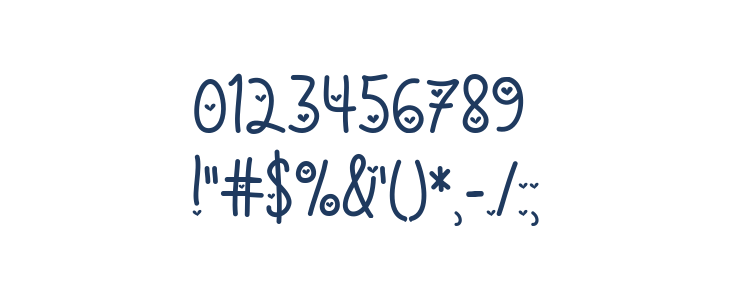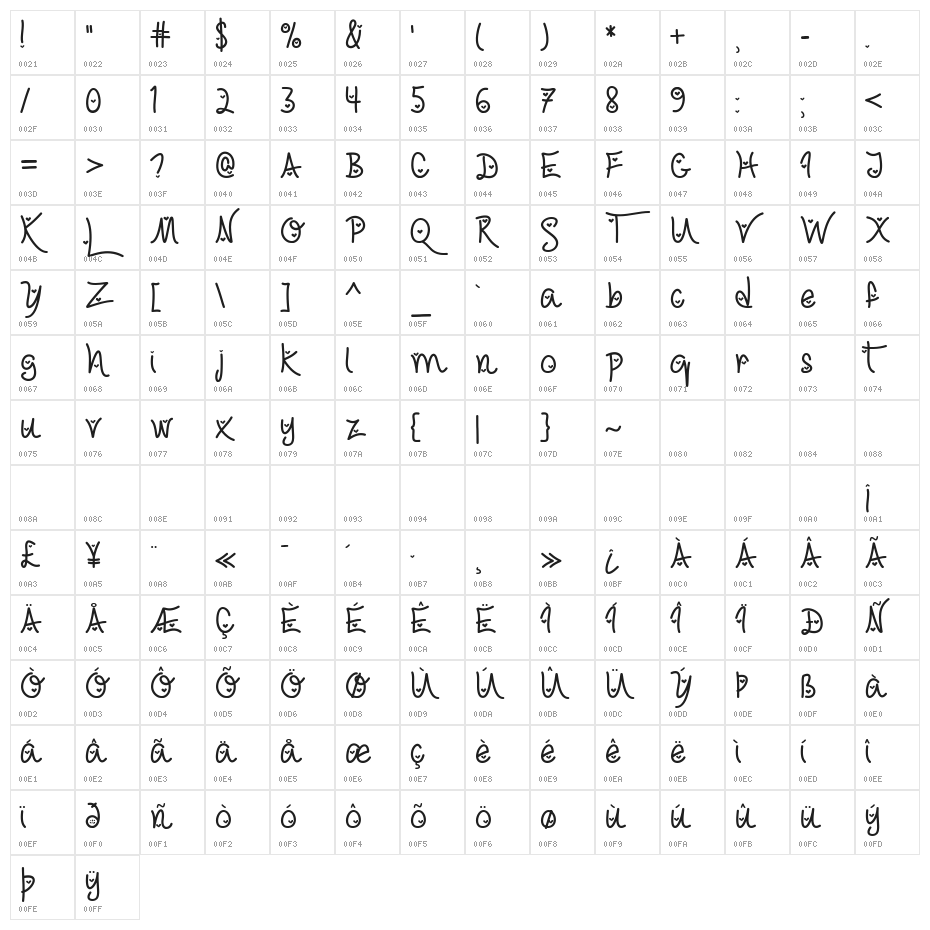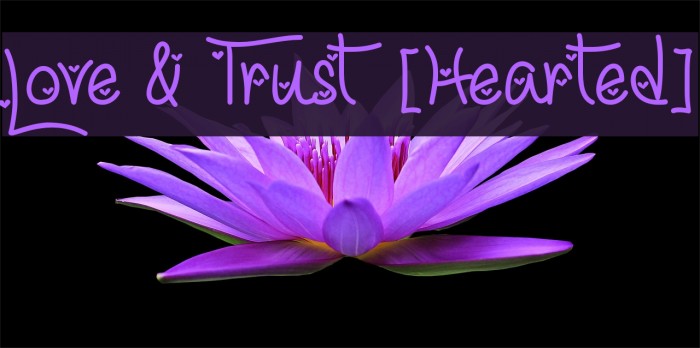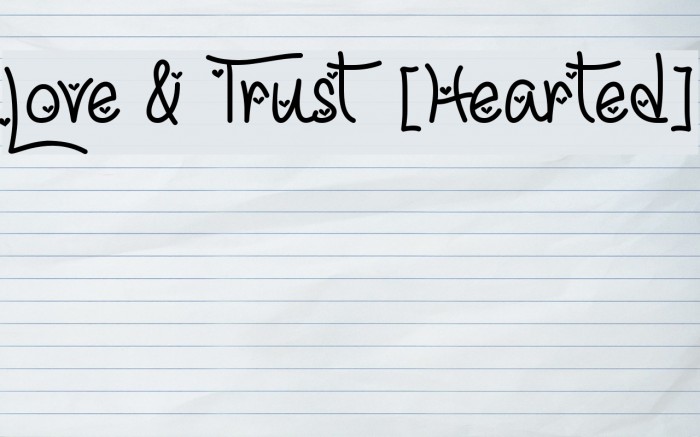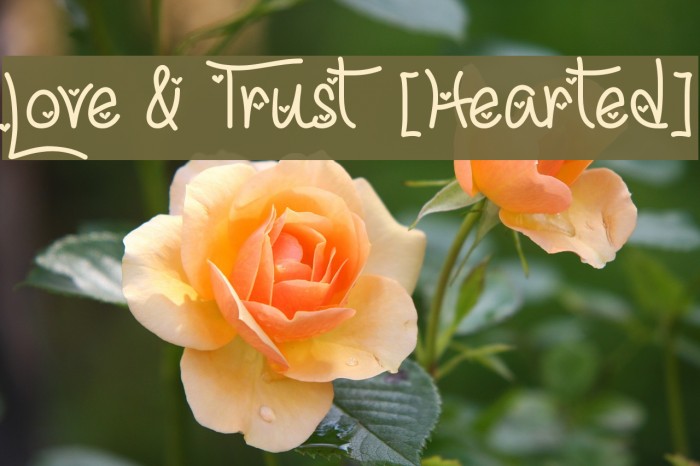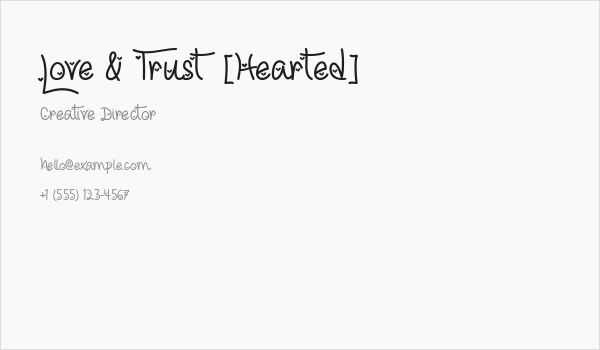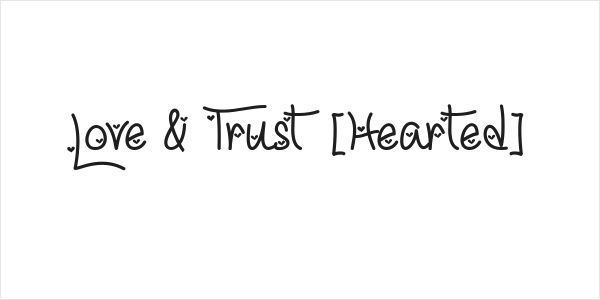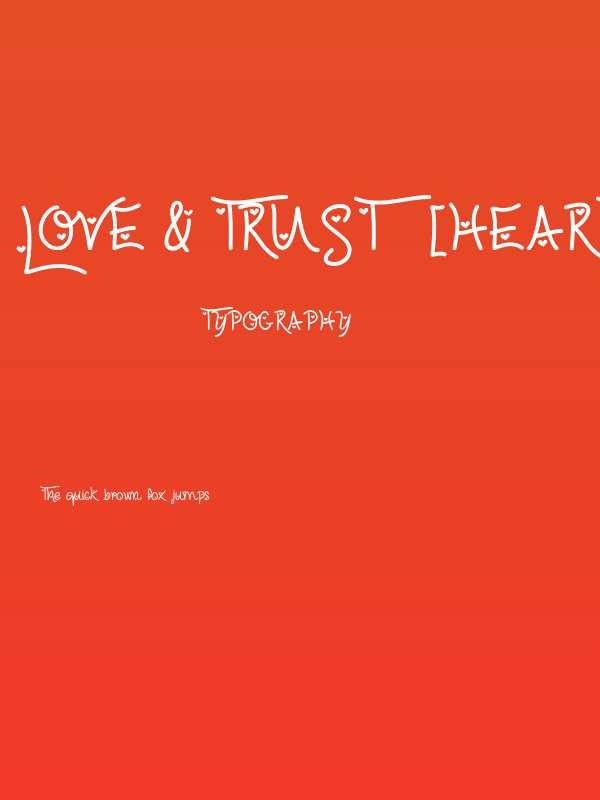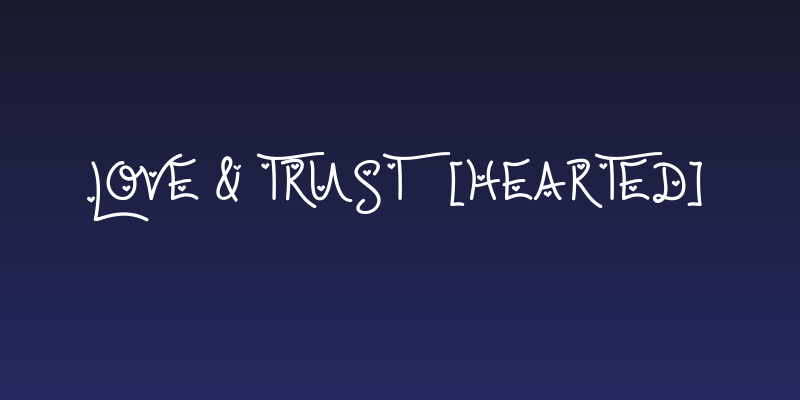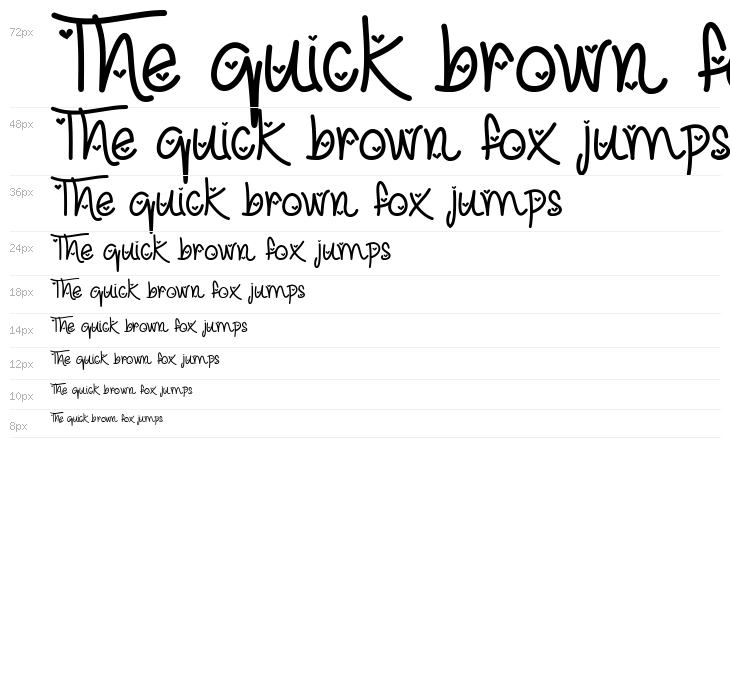
Love & Trust [Hearted] Font
Love & Trust [Hearted] Description
This playful and whimsical font features heart motifs integrated into the design of each character, giving it a unique and charming appearance. The letters are crafted with a casual, handwritten style, characterized by smooth curves and a friendly demeanor. The uppercase and lowercase letters maintain a consistent style, with the heart elements adding a touch of romance and fun. The numerals and special characters also incorporate these heart details, ensuring a cohesive look throughout the font. This font is ideal for projects that require a personal, affectionate touch, such as greeting cards, wedding invitations, or playful branding.